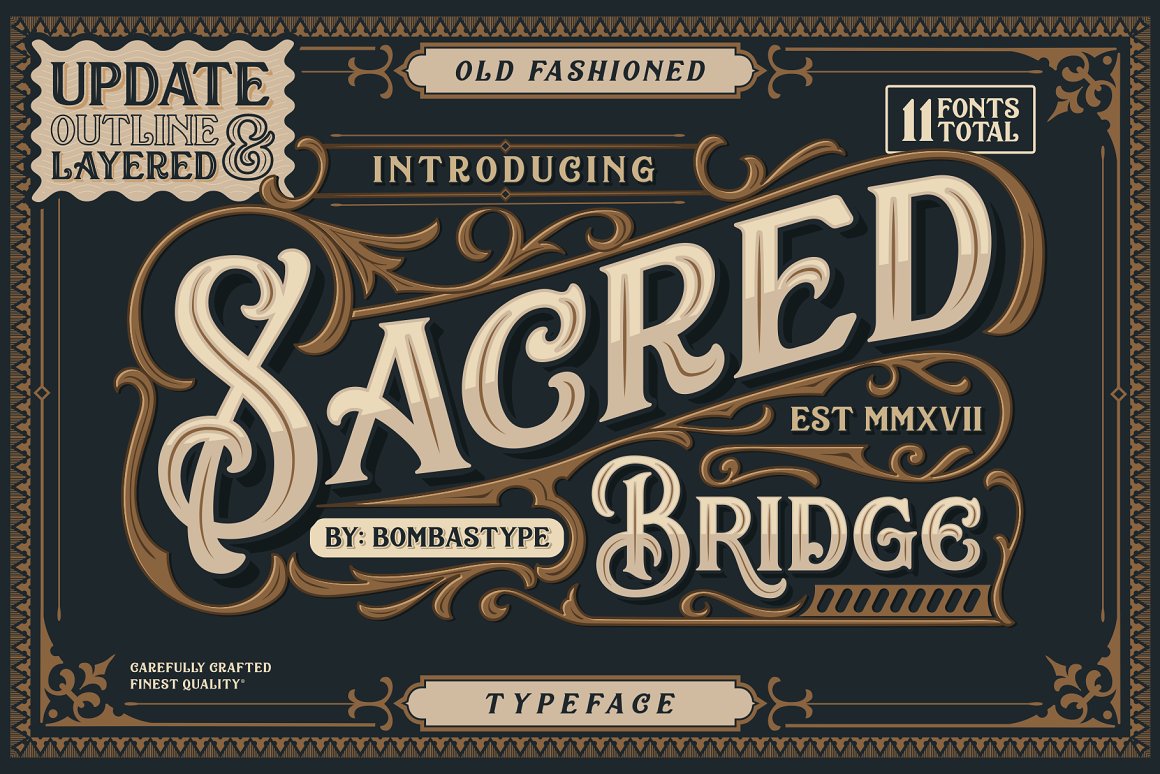
Sacred Bridge
Sacred Bridge Font
Sacred Bridge is an old fashioned typeface ,come up with clean and letterpress style, regular and italic with extra ornaments and symbols. Sacred Bridge is great for any kind of display purpose from branding, emblem, advertising , t-shirt , etc you name it.